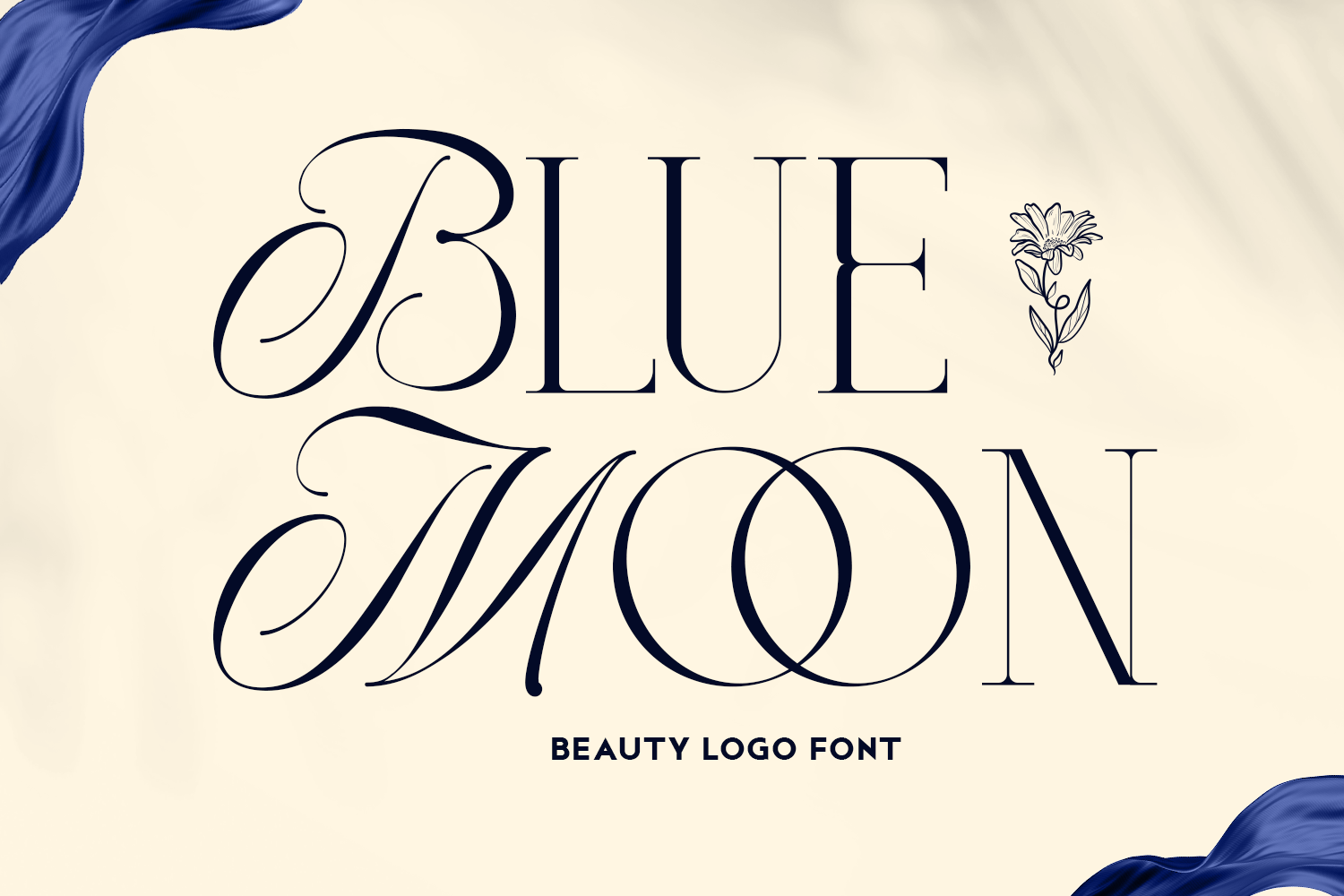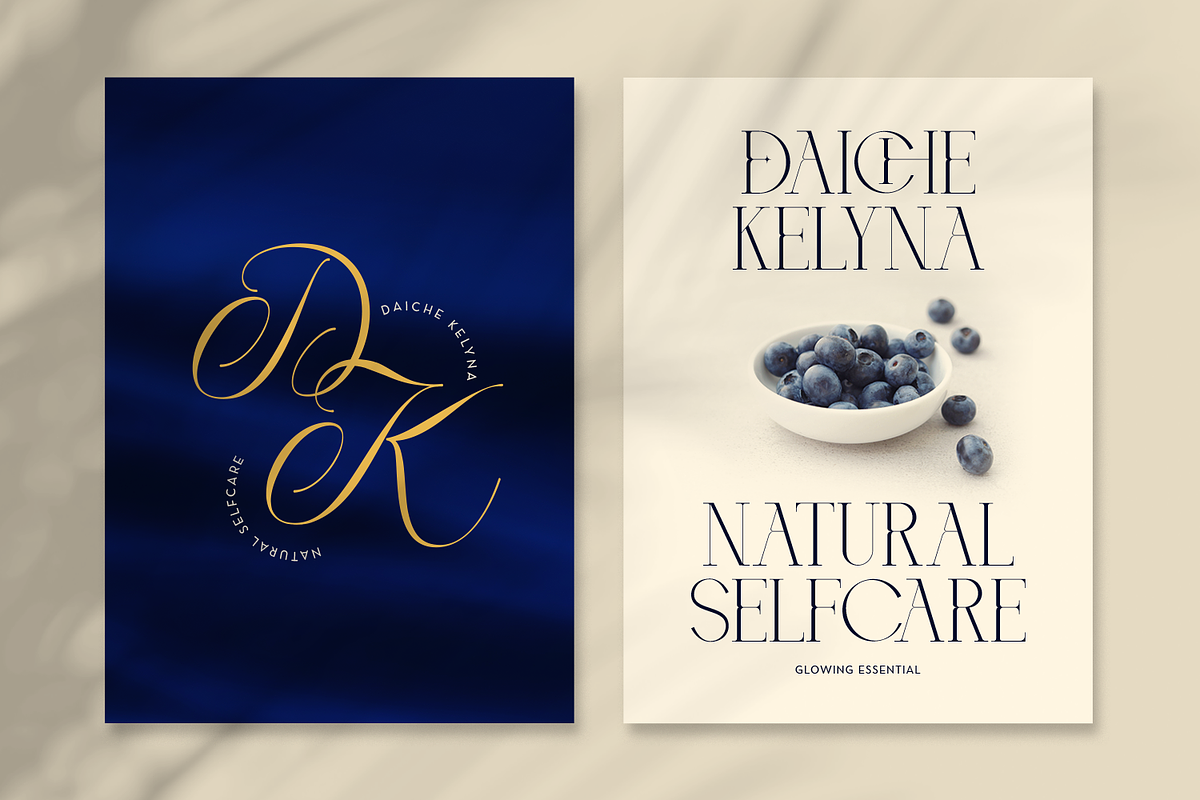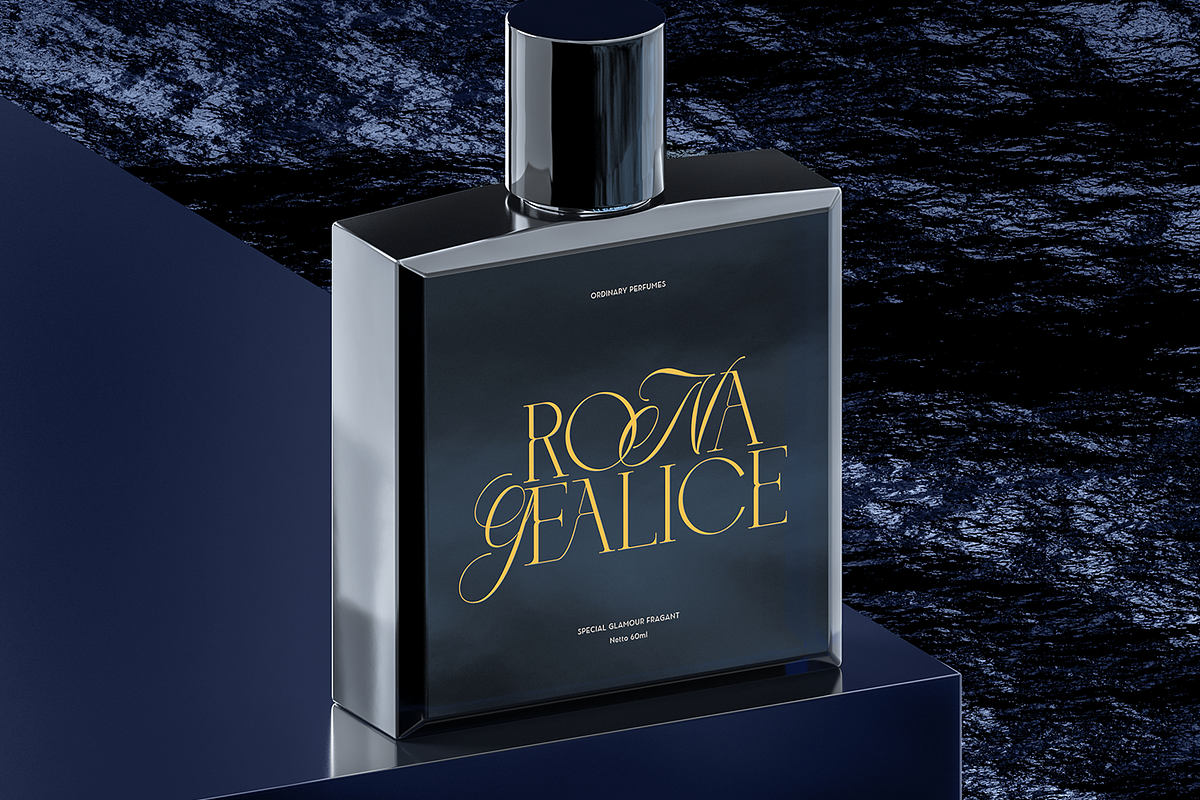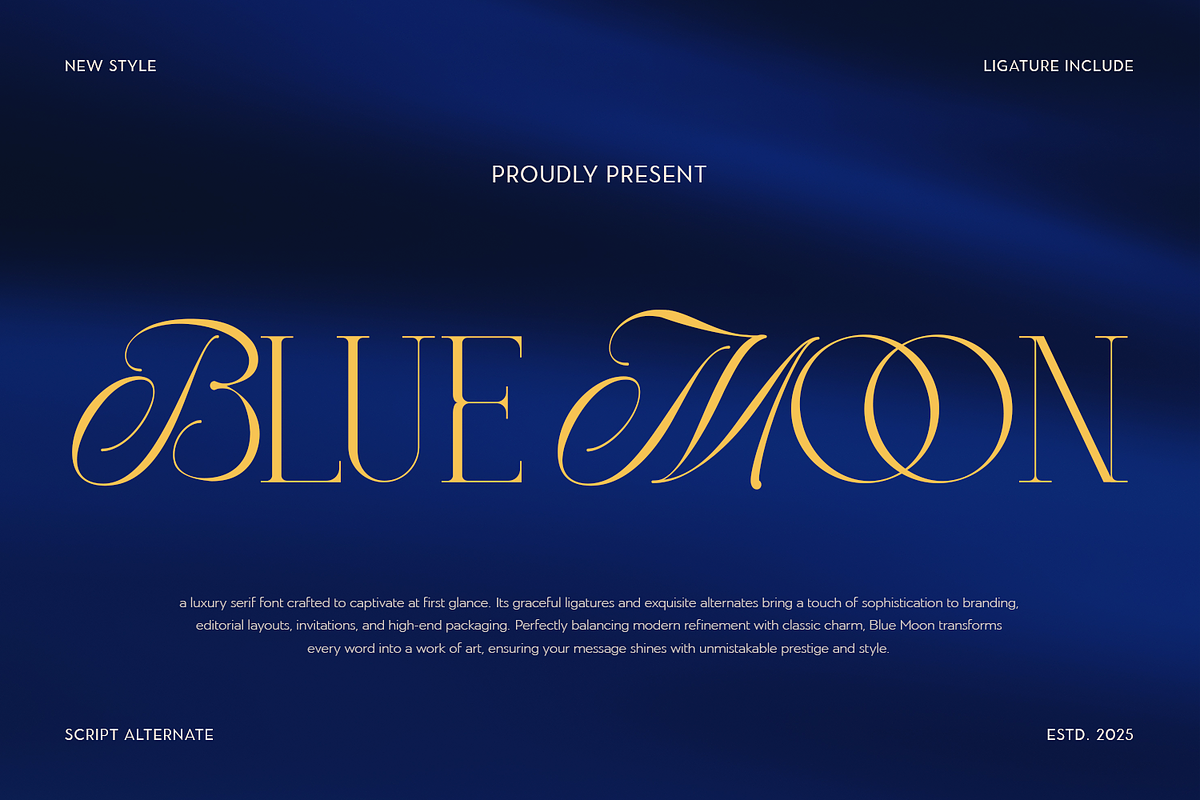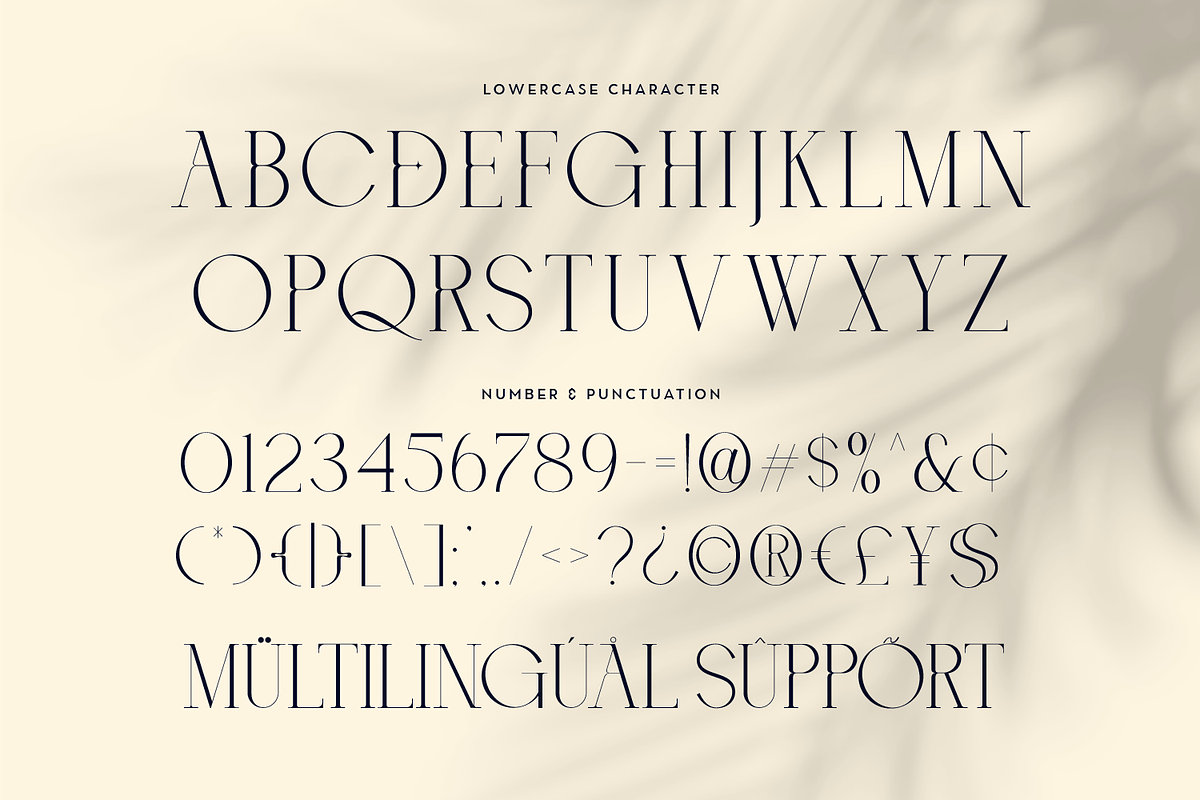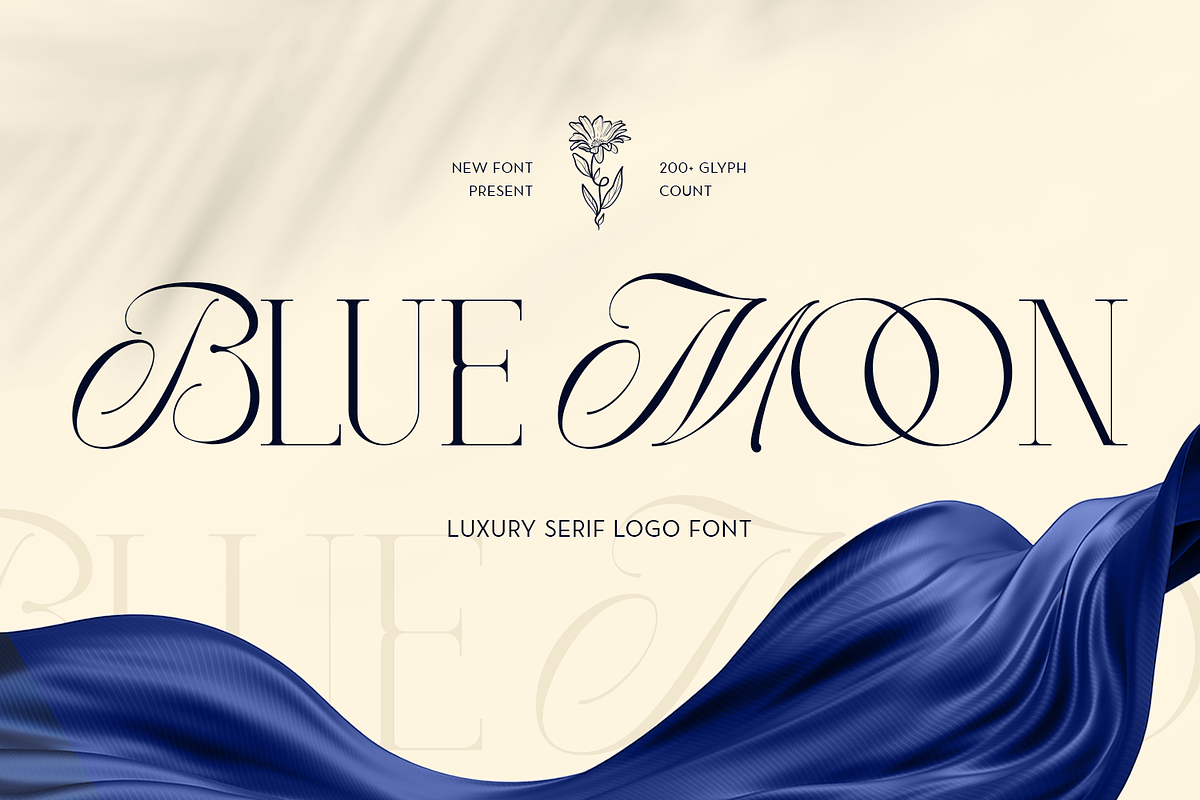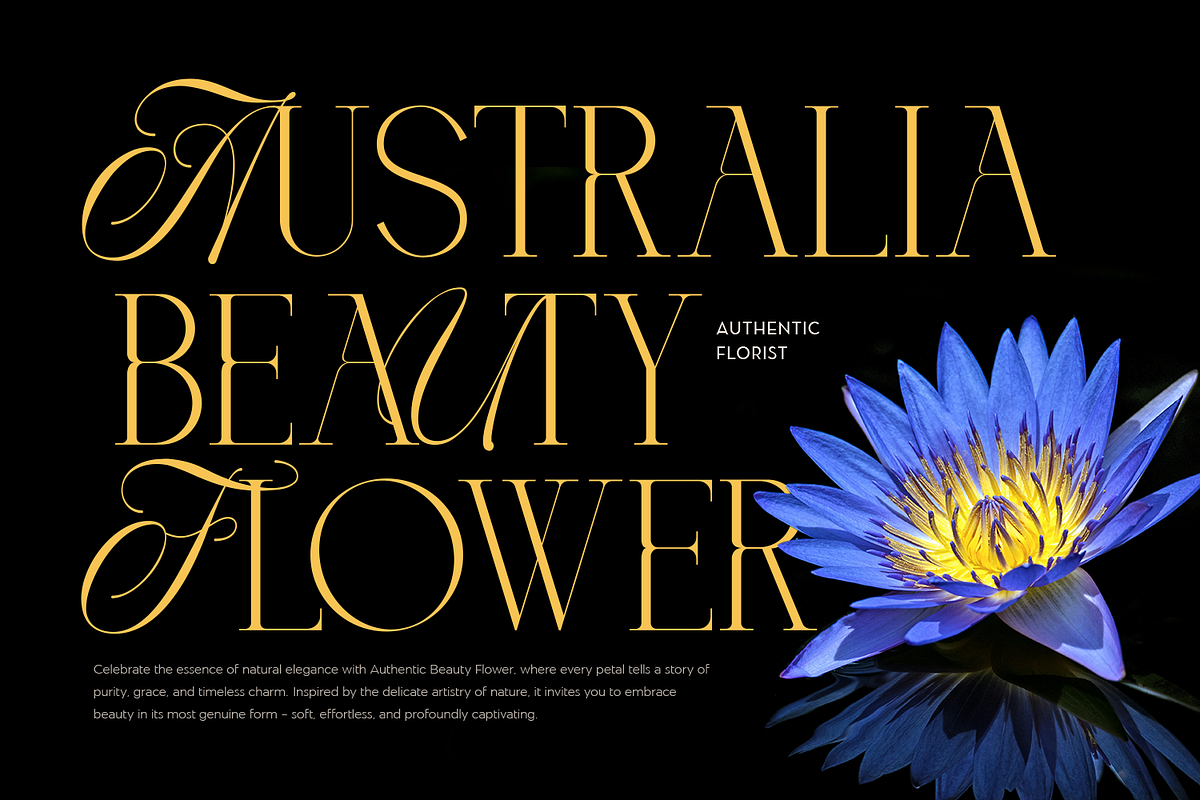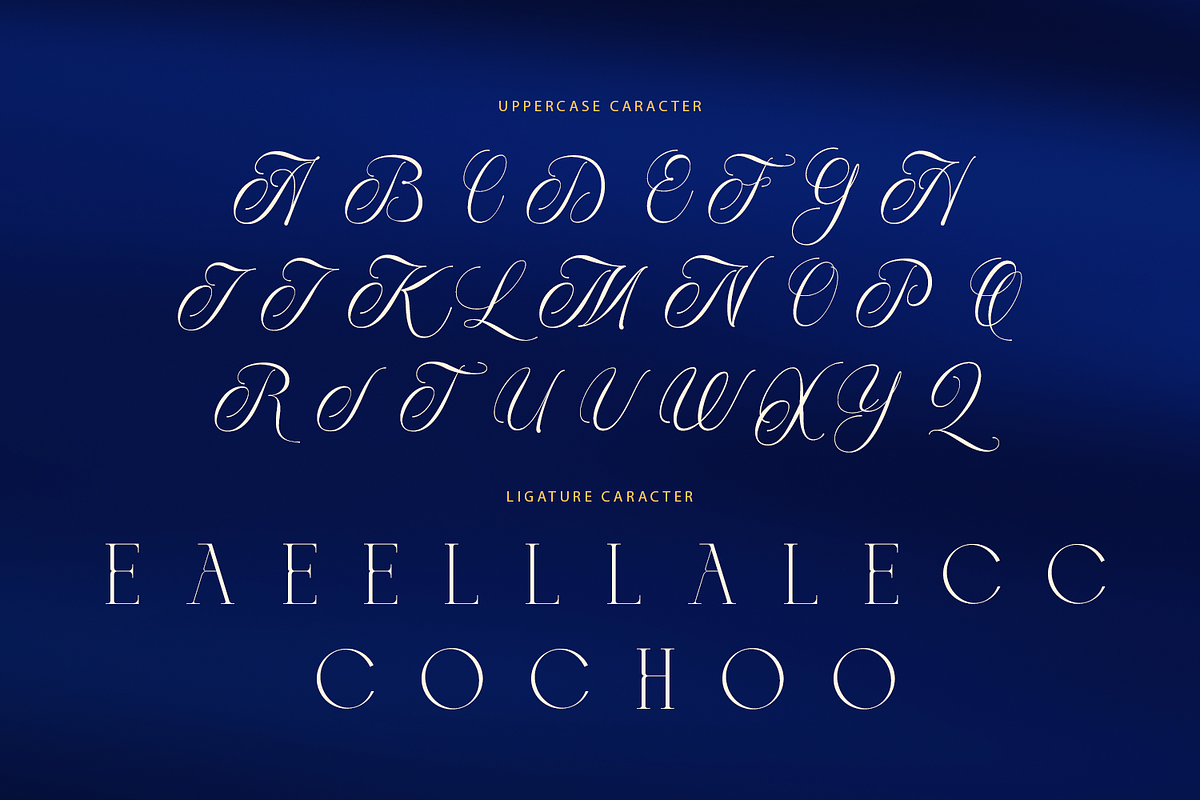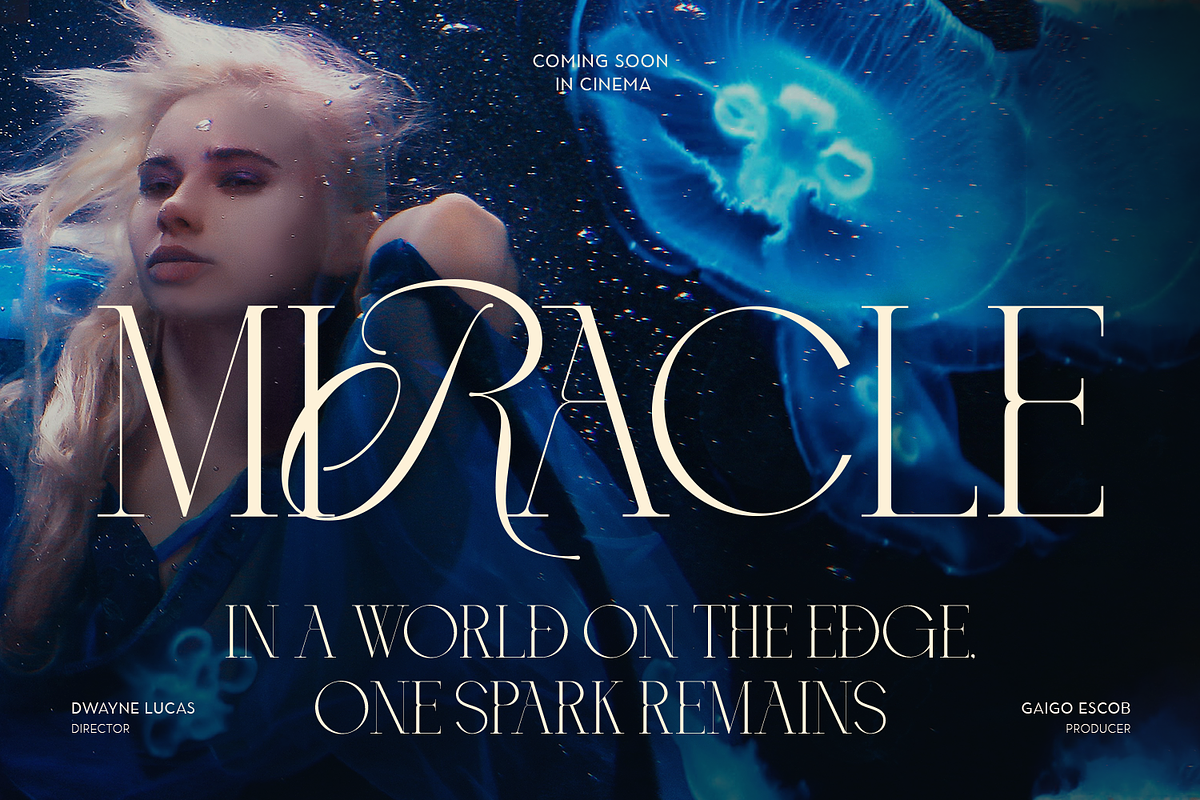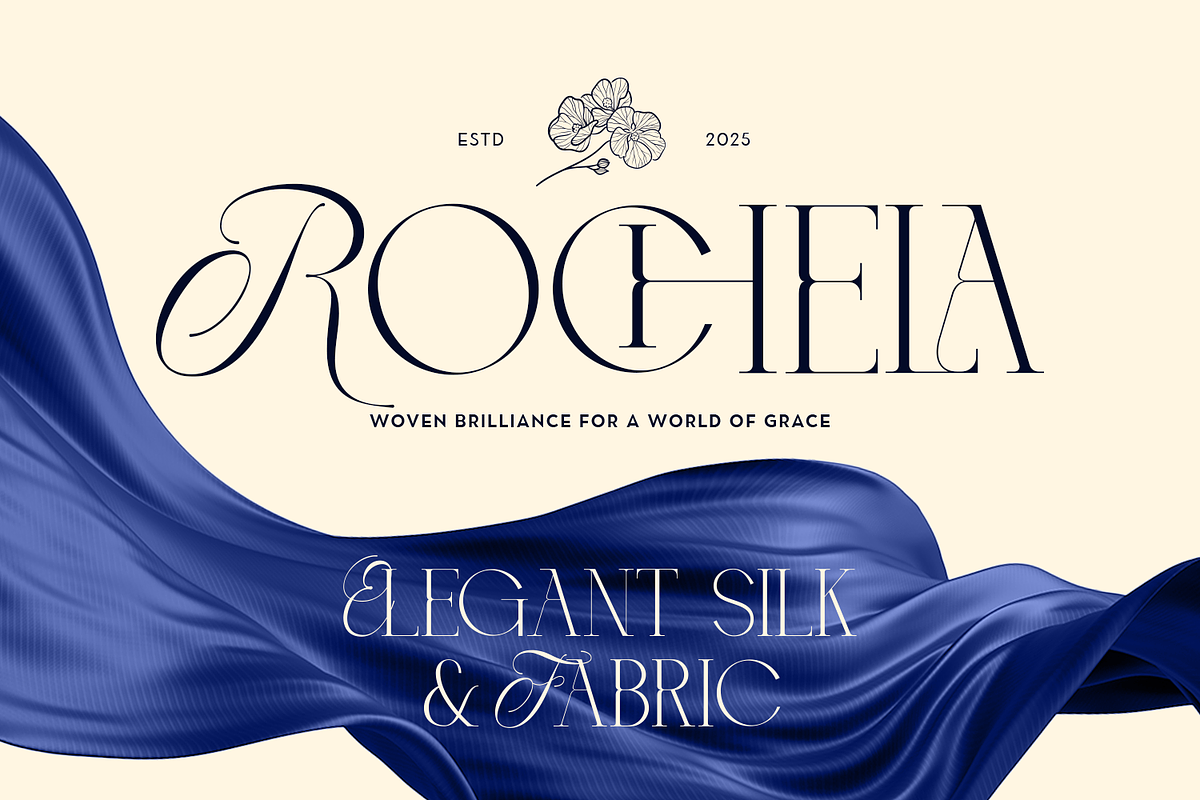
BlueMoon - Luxury Font
BlueMoon embodies a refined sense of luxury through its graceful letterforms and elevated visual style. Crafted with smooth curves and elegant detailing, this font delivers a timeless aesthetic that enhances premium branding and upscale design concepts.
With a collection of sophisticated alternates and expressive ligatures, BlueMoon offers versatile typographic possibilities. Each character is designed to flow harmoniously, creating polished compositions suitable for high-end visuals and modern editorial layouts.
Its distinctive blend of soft elegance and structured form brings an exclusive touch to any project. Whether applied to beauty brands, fashion identities, signature logos, or luxury packaging, BlueMoon brings a sense of prestige and refinement.
The font’s balanced proportions and sleek appearance make it ideal for magazines, product presentations, social media branding, invitations, and creative advertisements seeking a classy and captivating presence.
BlueMoon delivers a premium typographic experience that elevates every design with sophistication and charm. Unlock the full elegance of BlueMoon and enhance your next project with a touch of luxury—download it today.